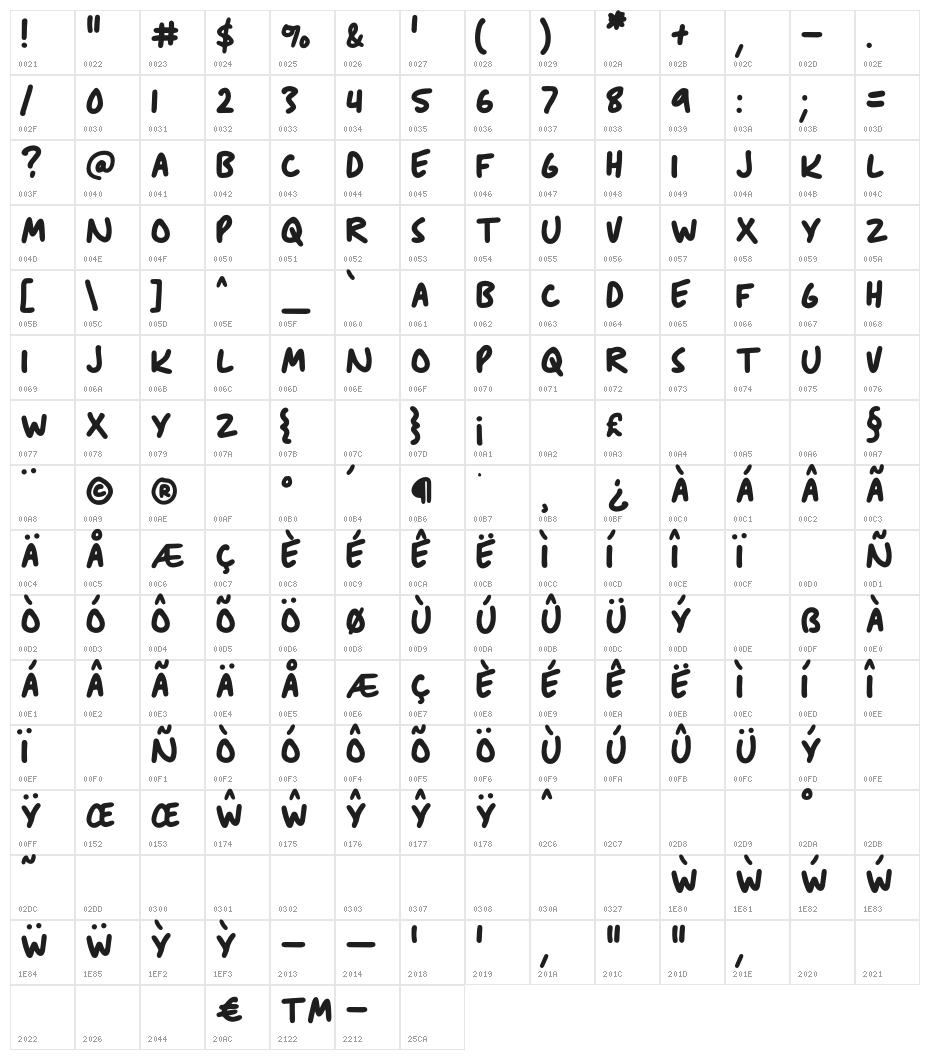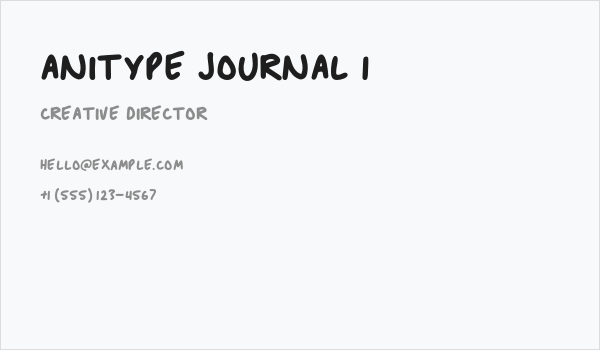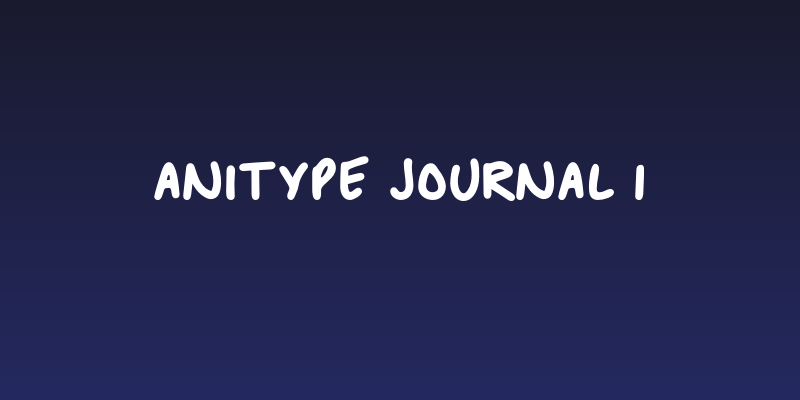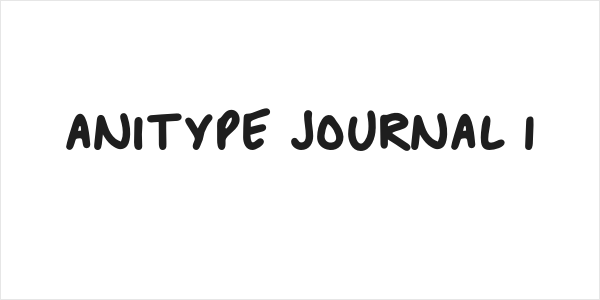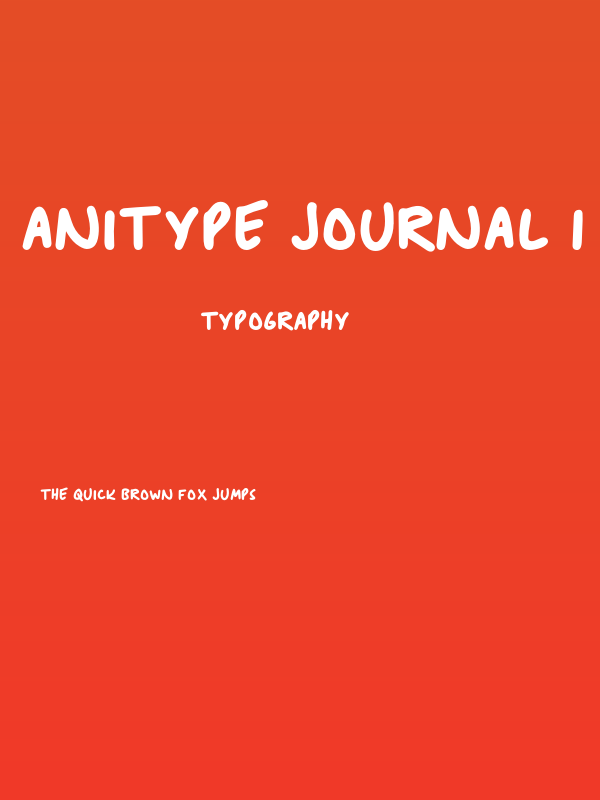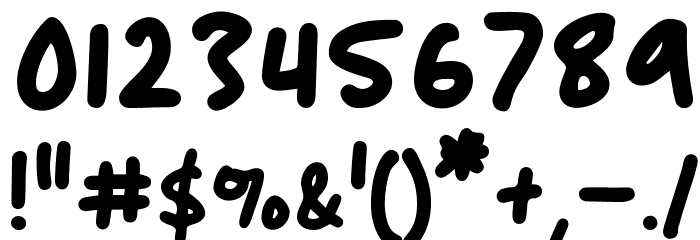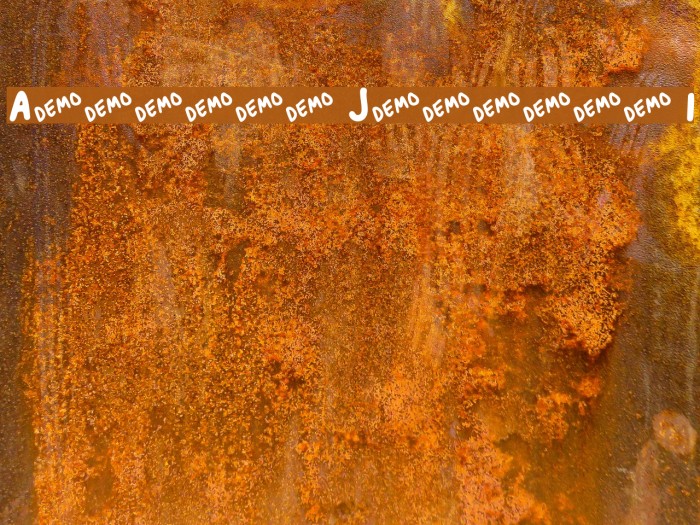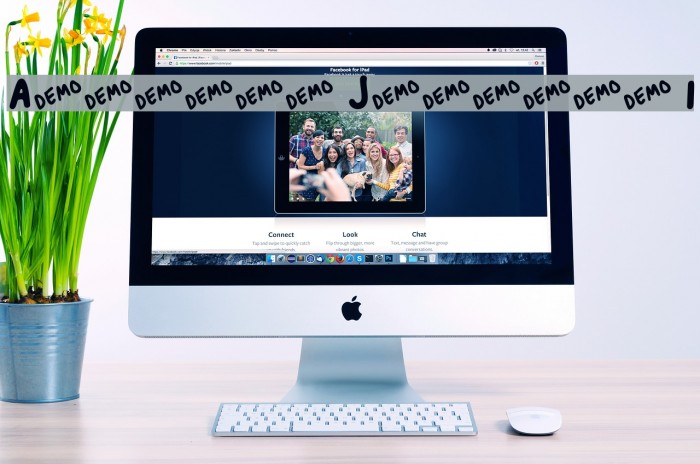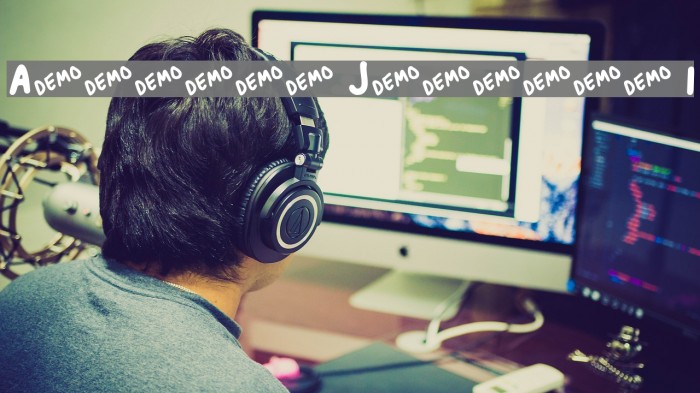
Anitype Journal 1 Font
Anitype Journal 1 Description
This font features a playful and bold handwritten style, characterized by its rounded and smooth letterforms. The uppercase and lowercase letters maintain a consistent flow, giving the font a cohesive and friendly appearance. The numbers and special characters follow the same design principles, ensuring uniformity across all glyphs. The strokes are thick and uniform, providing a strong visual impact, while the overall style remains approachable and informal. This font is ideal for projects that require a personal touch, such as invitations, greeting cards, or playful branding materials.
| Overall Style | Playful |
| Use Case | Logos, Headlines, Informal Text |
| Proposed Projects | Ideal for invitations, greeting cards, playful branding, and informal designs. |